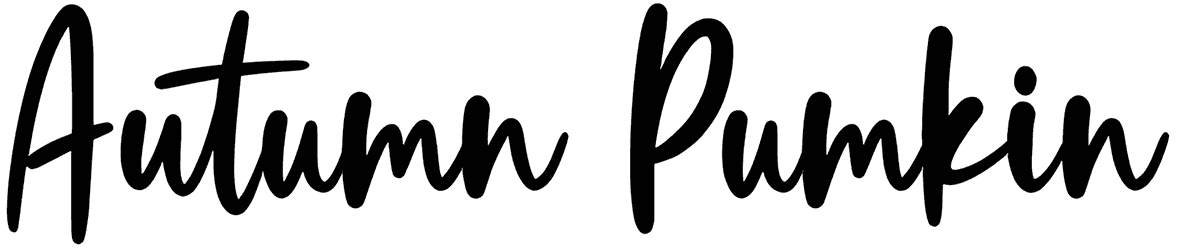
Autumn Pumkin Font
If you want your artwork to look irresistible to the audience, every piece of your graphic content, including the font, must be really excellent, and in this regard, a glamorous script font such as Autumn Pumkin can be your faithful assistant.